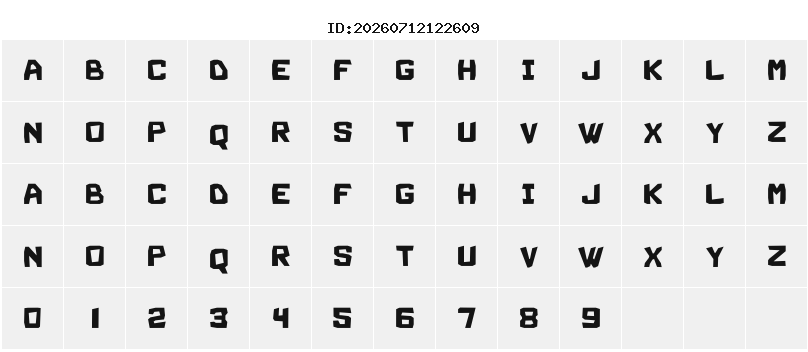
Magario Preview
• Font Name: Magario
• Full Font Name: Magario
• PostScript Name: Magario
About Magario.ttf
Magario.ttf is a modern, elegant sans-serif font designed for ultimate readability and visual harmony. Perfect for branding, headlines, web design, and print materials.